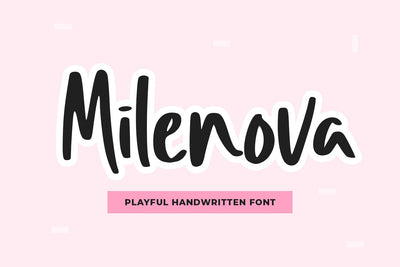
Milenova
introducing
MILENOVA
- playful handwritten font -
MILENOVA is a natural handwriting font.
It is great for quotes, t-shirt designs, tote bag designs, cards, banners, social media, and more.